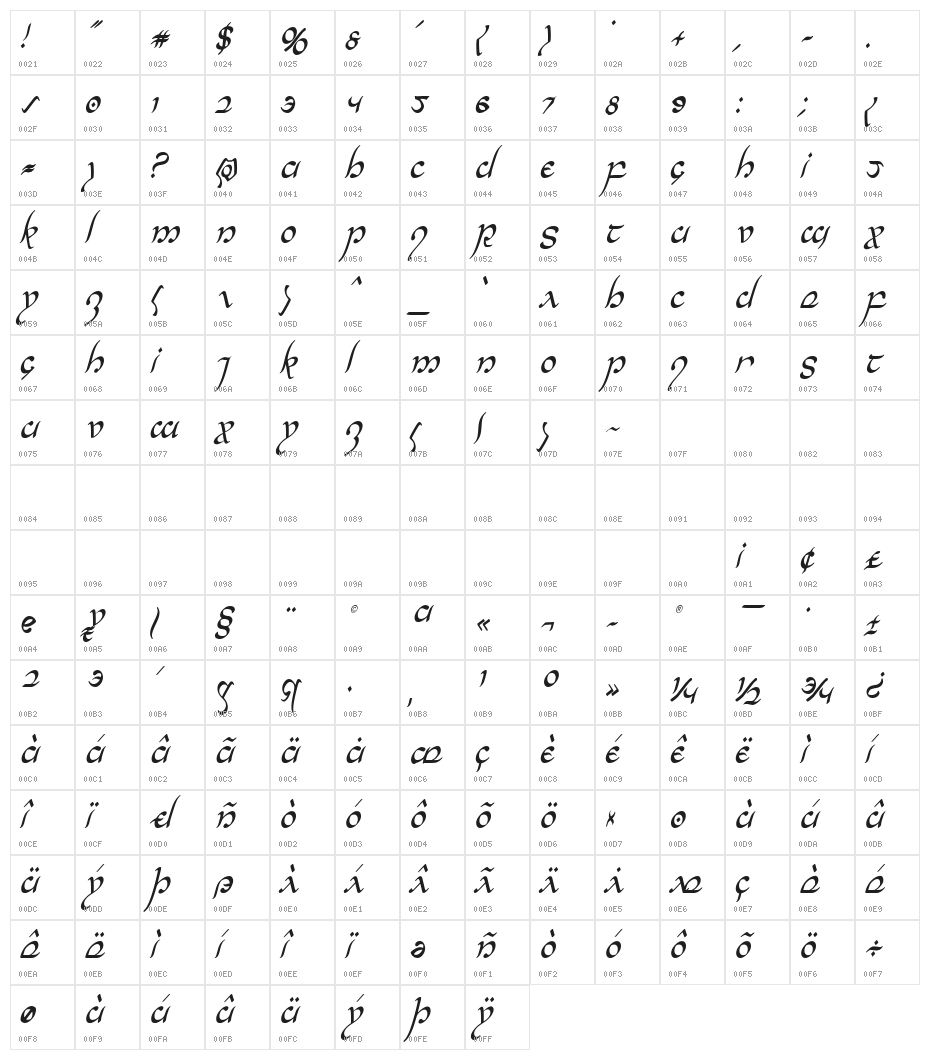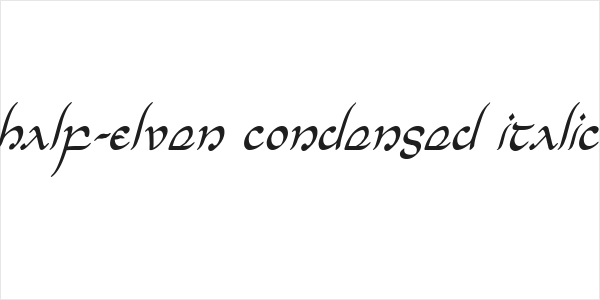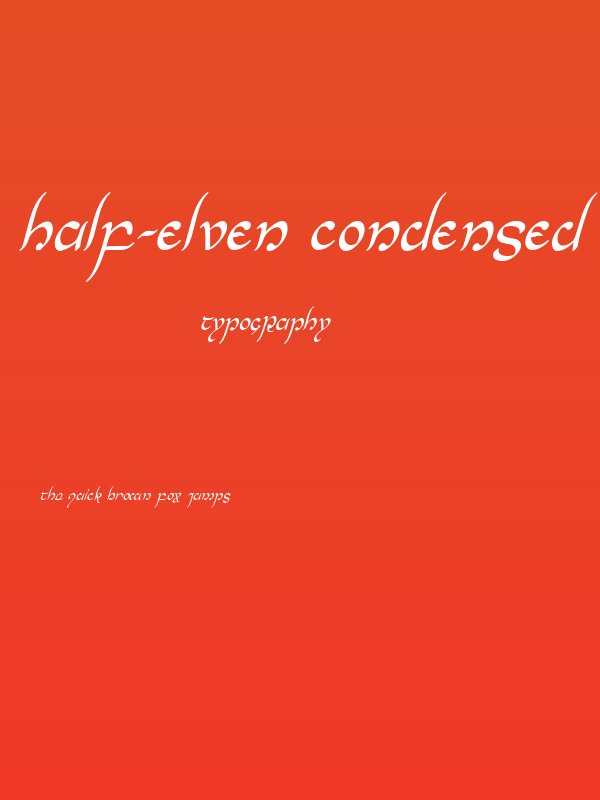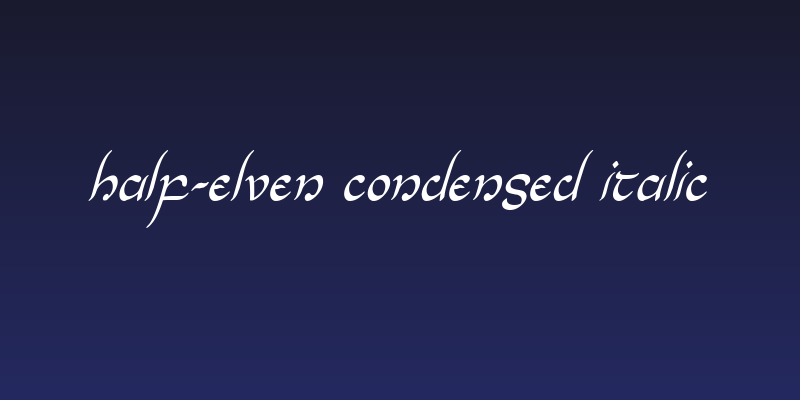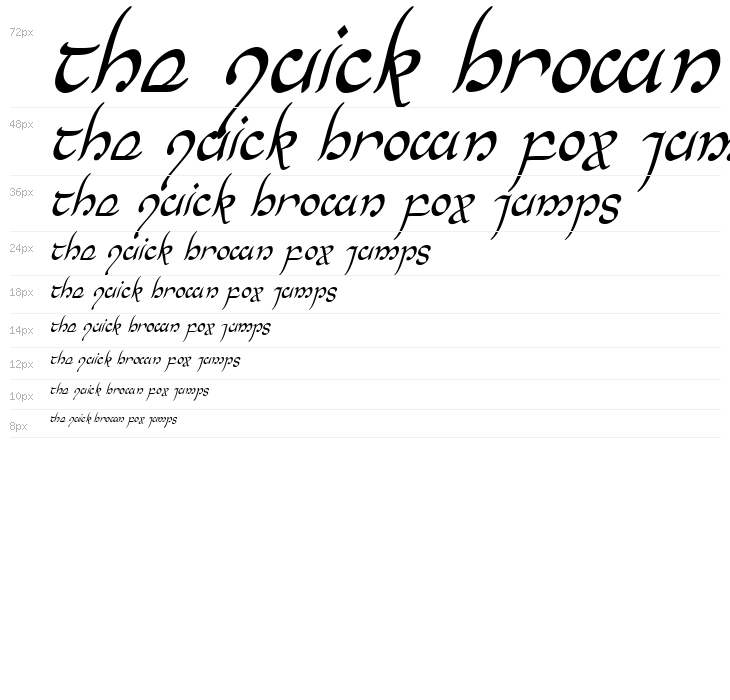
Half-Elven Condensed Italic Font
Half-Elven Condensed Italic Description
This font features a unique and elegant design that combines elements of both script and decorative styles. The characters are condensed and italicized, giving them a flowing and dynamic appearance. The strokes are smooth and slightly curved, with a medium contrast between thick and thin lines. This creates a sense of movement and grace, reminiscent of elven or fantasy-inspired typography. The font maintains a consistent character spacing that is slightly tight, enhancing its compact and cohesive look. The numerals and special characters are designed to match the overall aesthetic, ensuring a harmonious visual experience.
Use CaseLogos, Headlines, Decorative text
Proposed ProjectsIdeal for fantasy-themed projects, book covers, game titles, and decorative invitations.